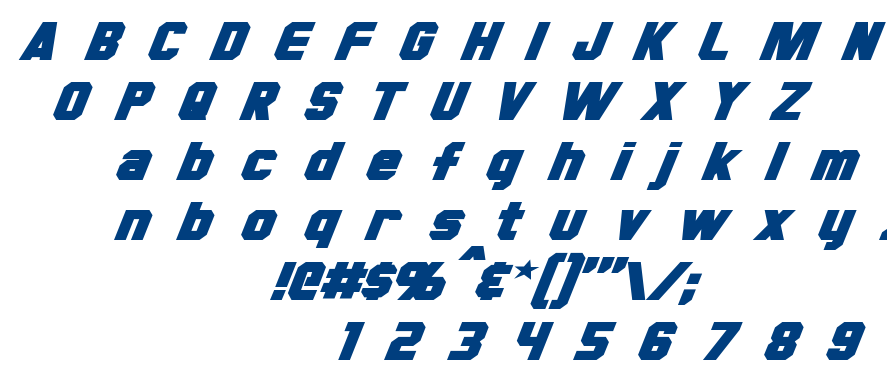
Gi joe font is a logo font that totally based on a gi joe movie.
Download pt gi joe font with normal style. That’s a military science fiction action film series that was first released in 2009. Download gi joe 1truetype font.
Includes full alphabet, accent characters, and euro. Before discussing its font, let’s talk about this movie. About the font pt gi joe.
Its a techno font family that have featuring the bold and thick glimpses. Cyberverse is inspired by hasbro’s “cyberverse” line logo from transformers: Download free fonts for mac, windows and linux.
Hauser is a simple, angular typeface with a military feel, heavily inspired by the title logo of hasbro's classic gi joe franchise. We offer fast servers so you can download gi joe fonts and get to work quickly. Gi joe 1 font viewed 461 times and downloaded 8 times.
The p is the u.s. Dark of the moon as well as the gi joe: Hauser is a simple, angular typeface with a military feel, heavily inspired by the title logo of hasbro's classic gi joe franchise.
A font based on the title logo from the tv show g.i. Download the free font replicating the title logo from the tv show g.i. Fontsup.com is a great collection of free fonts.